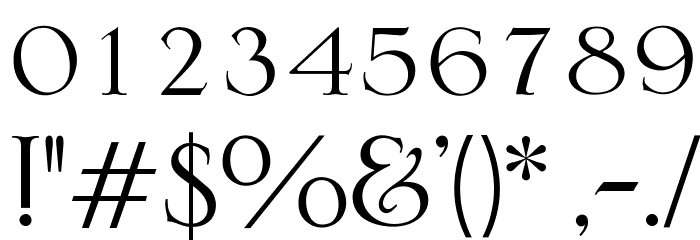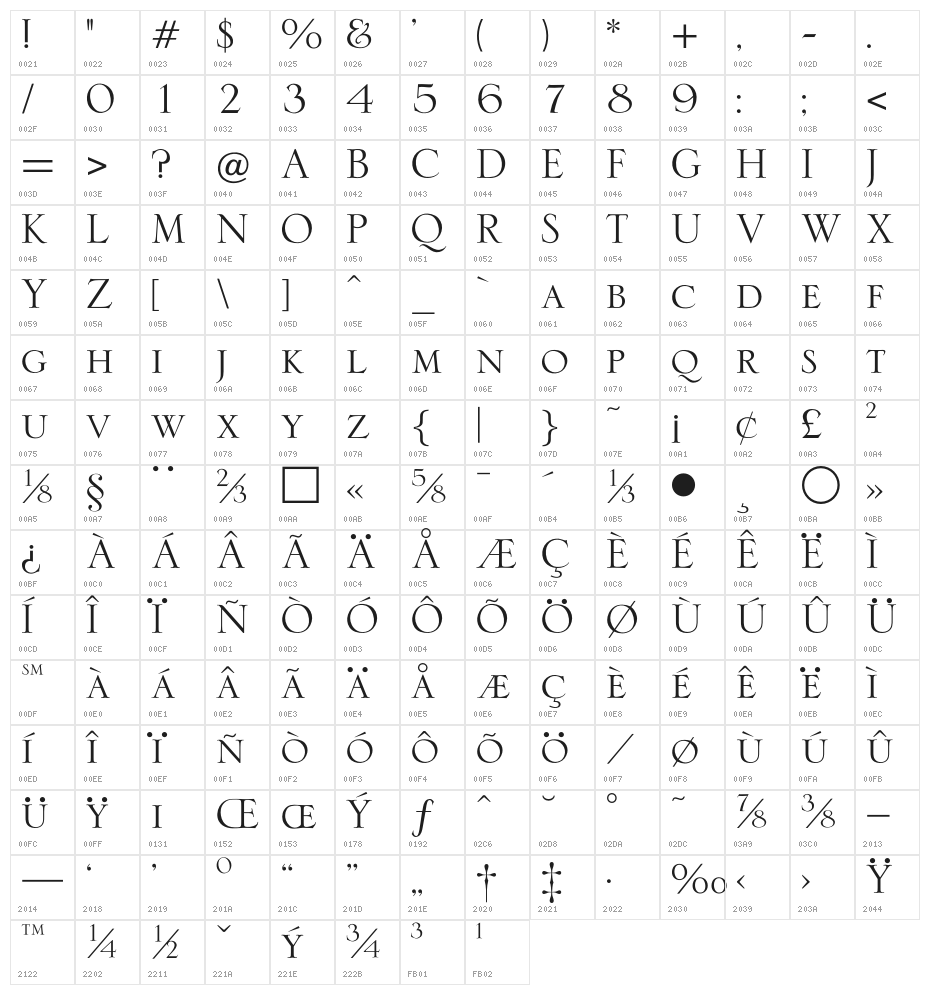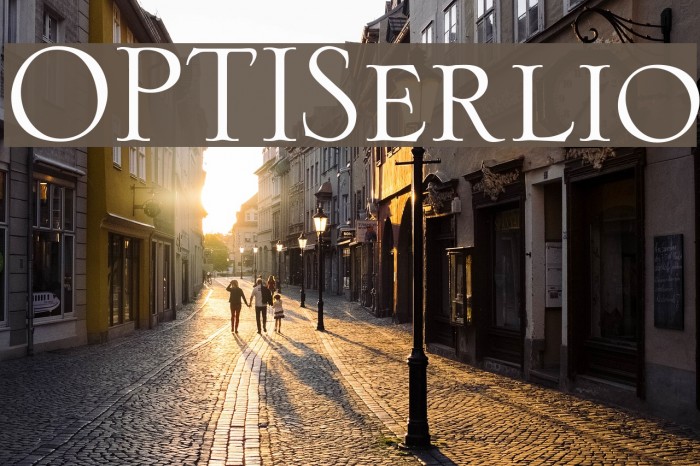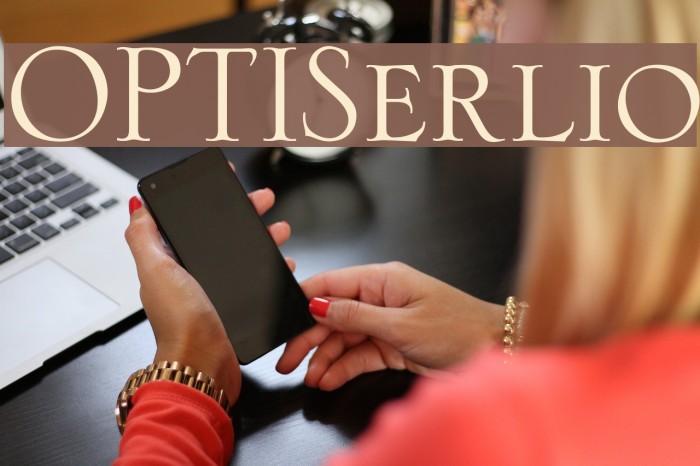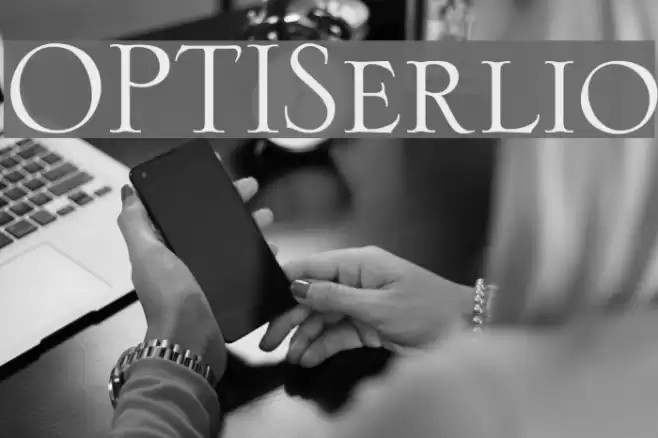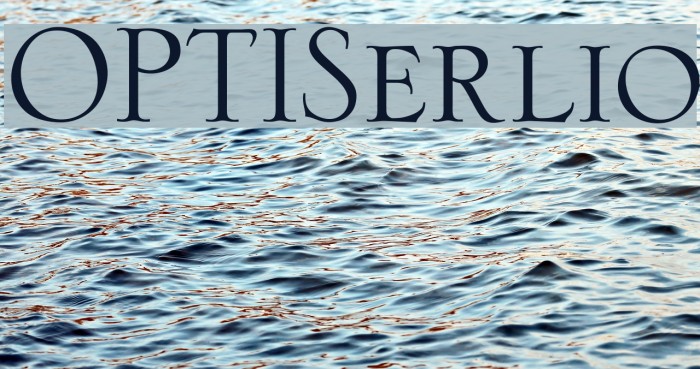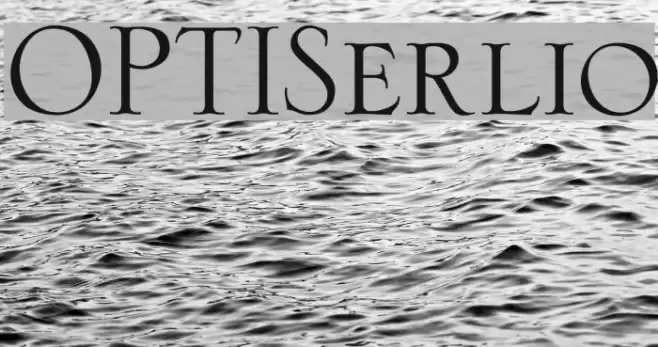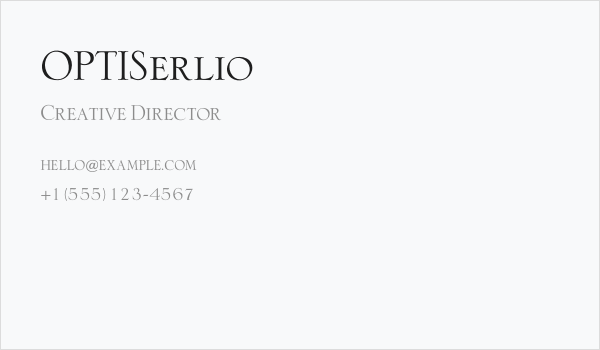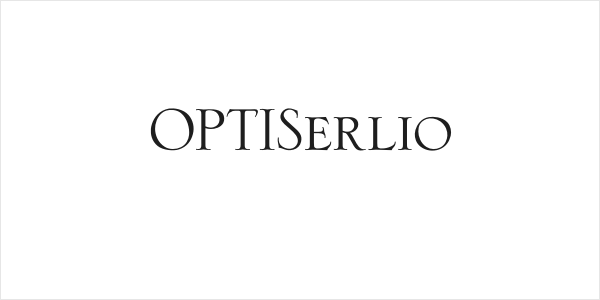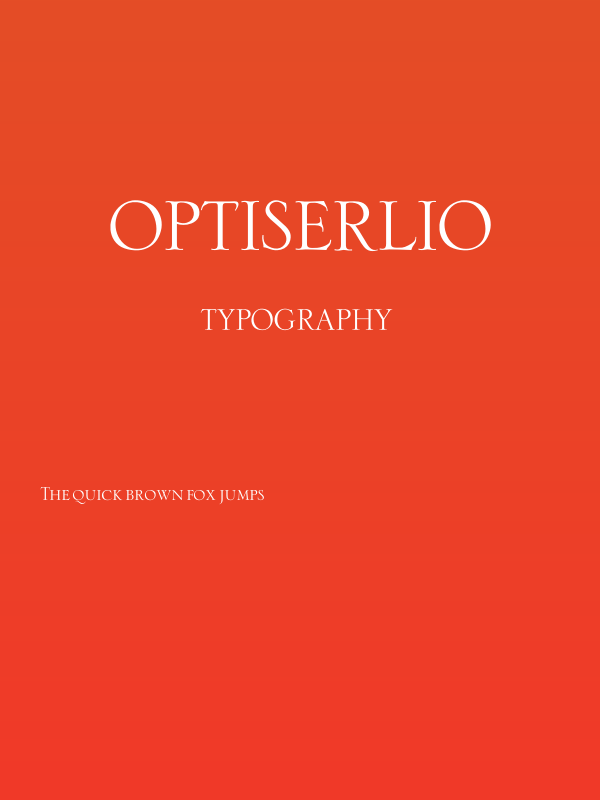
OPTISerlio Font
OPTISerlio Description
This font exhibits a classic serif style with elegant, thin strokes and subtle curves. The uppercase letters are distinguished by their refined serifs and balanced proportions, giving them a timeless and sophisticated appearance. The lowercase letters maintain a consistent style, with a slight contrast in stroke thickness that adds to the overall elegance. The numerals are clear and legible, featuring the same serif detailing as the letters. Special characters are well-integrated, maintaining the font's cohesive aesthetic. This font is ideal for projects requiring a touch of class and tradition.
| Proposed Projects | Ideal for book covers, formal invitations, and branding materials that require a sophisticated touch. |